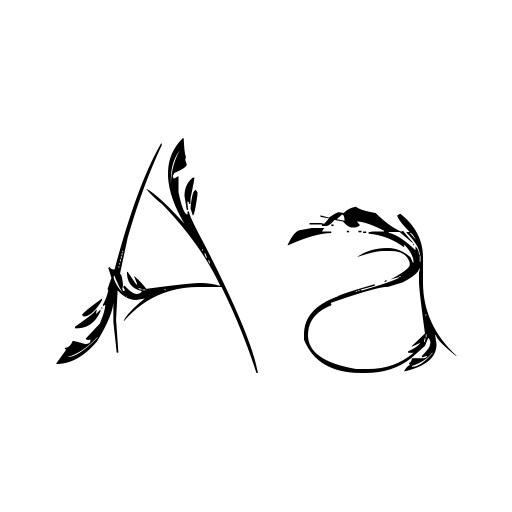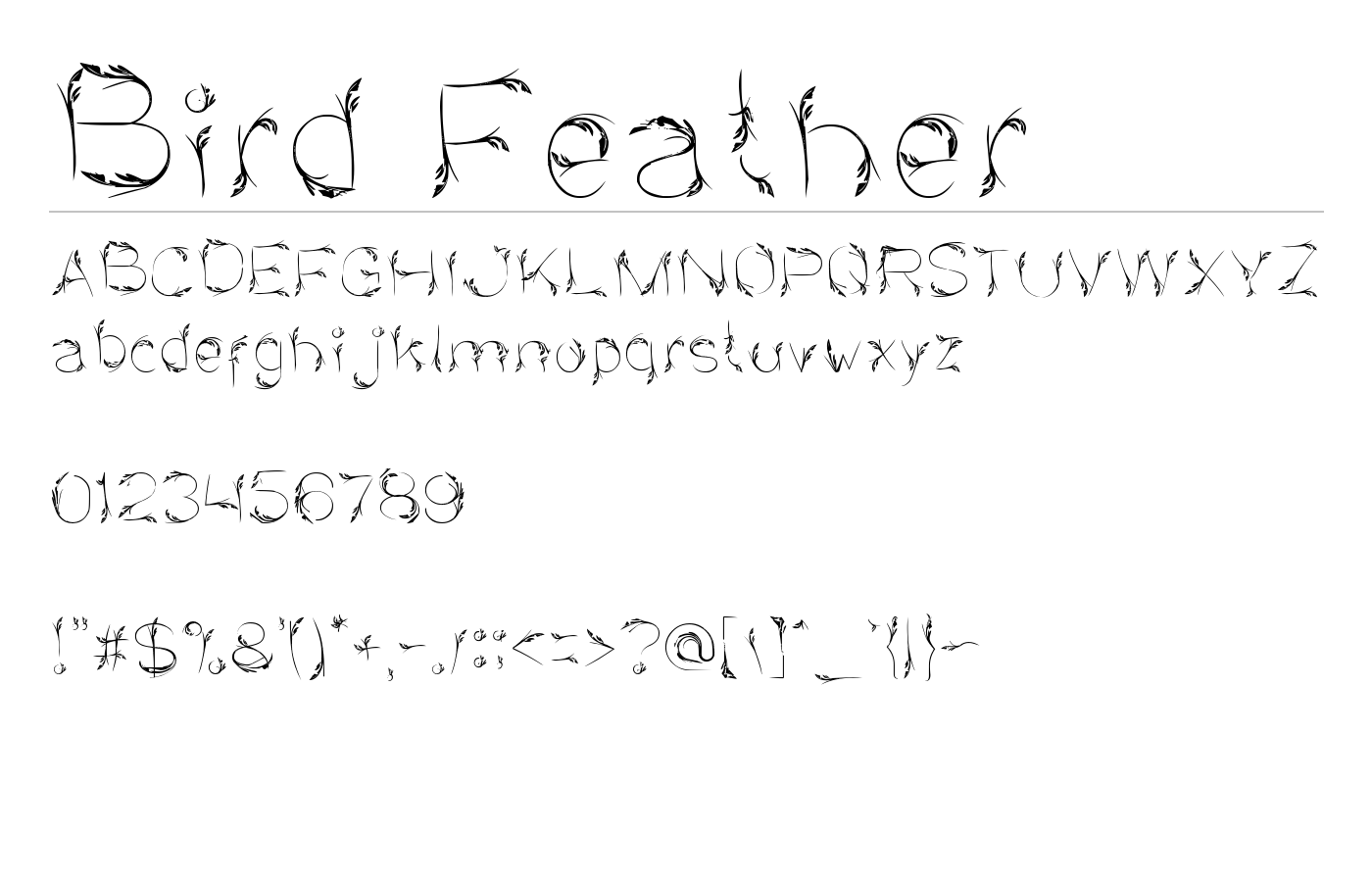
Bird Feather Font is a delicate and artistic serif typeface that mimics the fine, intricate details of feathers with soft, wispy strokes and subtle curves. Its light weight and airy texture give it a whimsical, nature-inspired feel, making it ideal for creative projects that seek a touch of elegance and organic beauty. Perfect for logos, invitations, or decorative headlines, this font brings a unique, handcrafted charm to any design.
Bird Feather Font
About Bird Feather Font